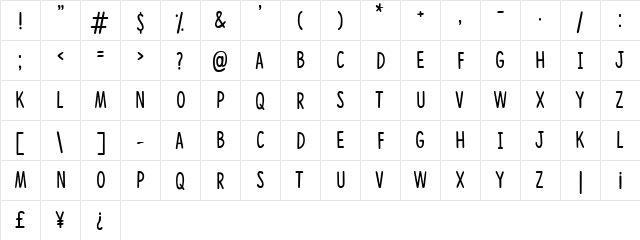
Congratulations DEMO Regular
| Foundry | Paperstreet |
| Designer | Paperstreet |
Design Context for Congratulations DEMO Typeface
Congratulations DEMO takes a measured approach to typography — its balanced proportions and neutral character make it a reliable workhorse for both digital and print work.